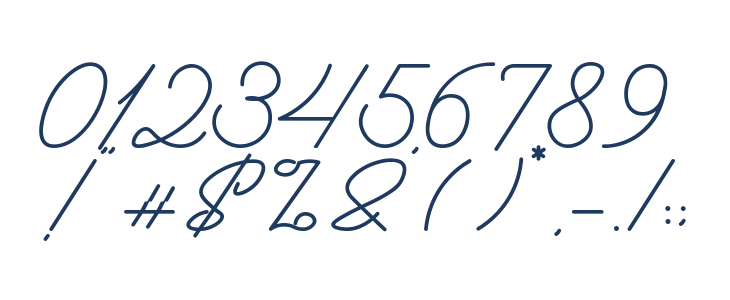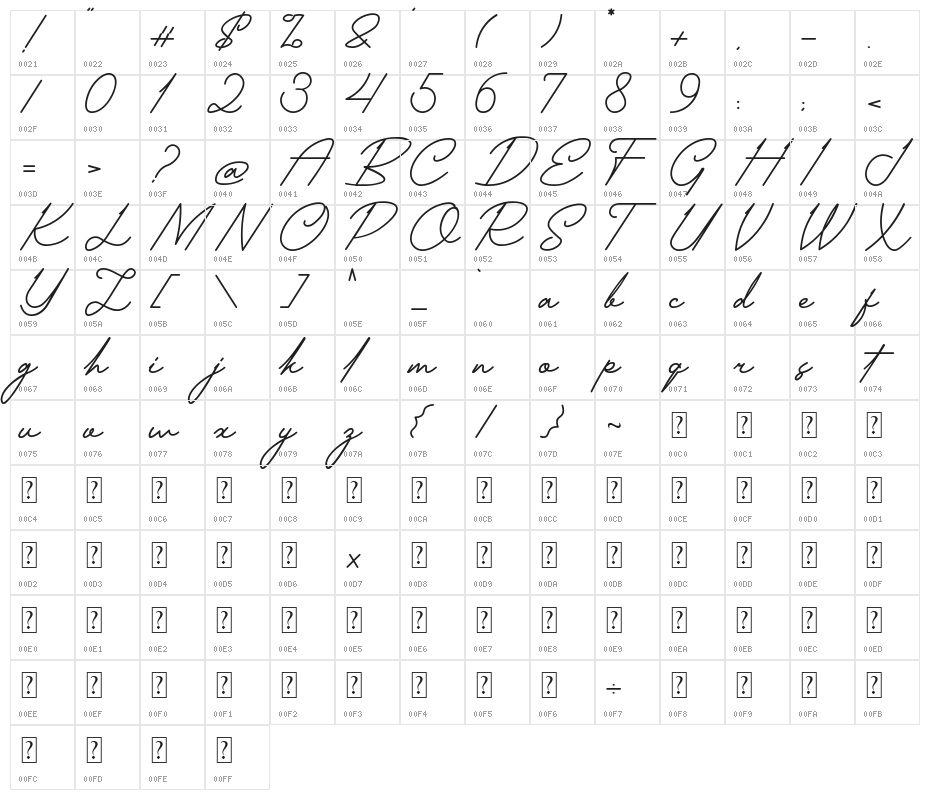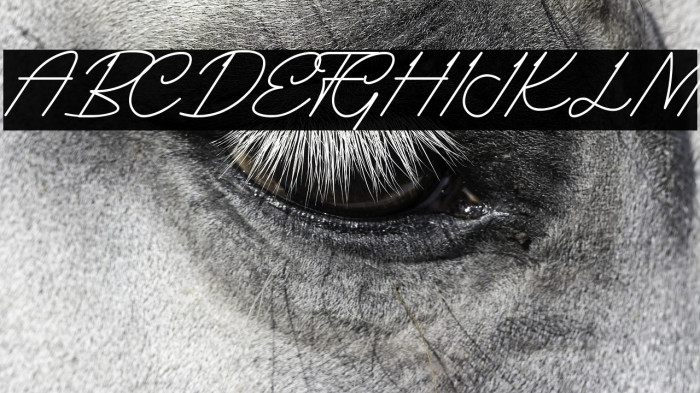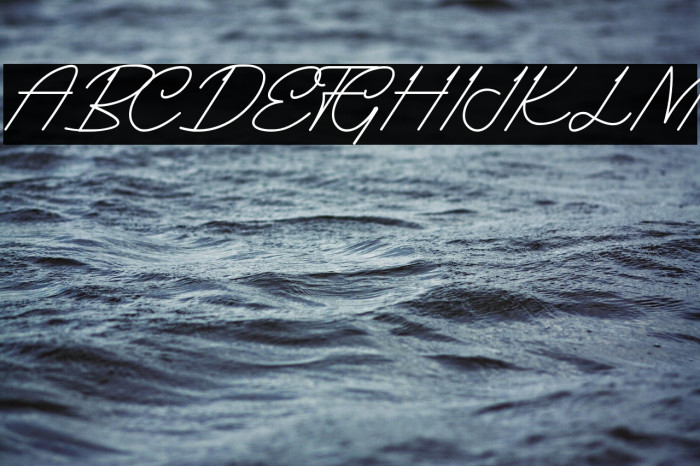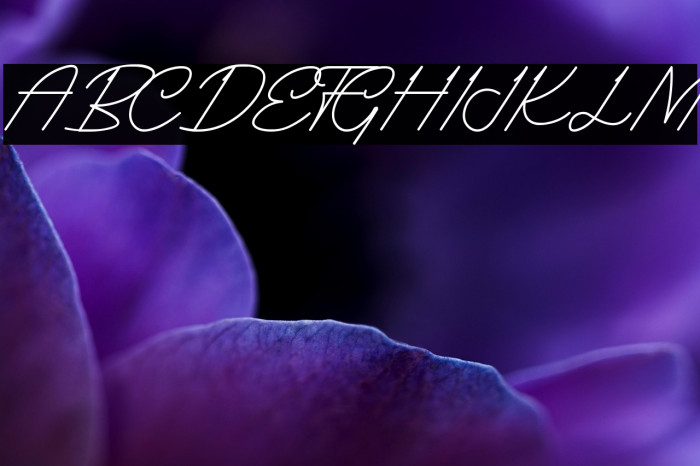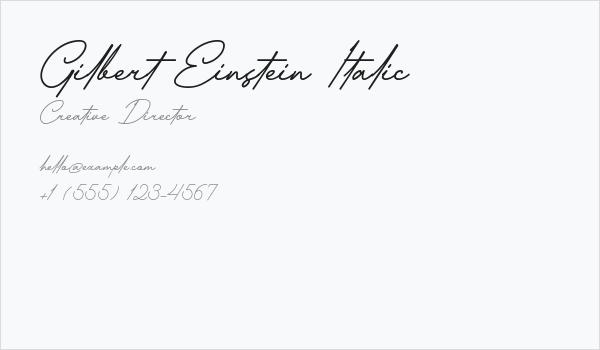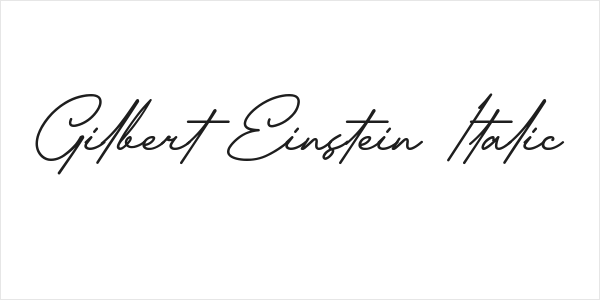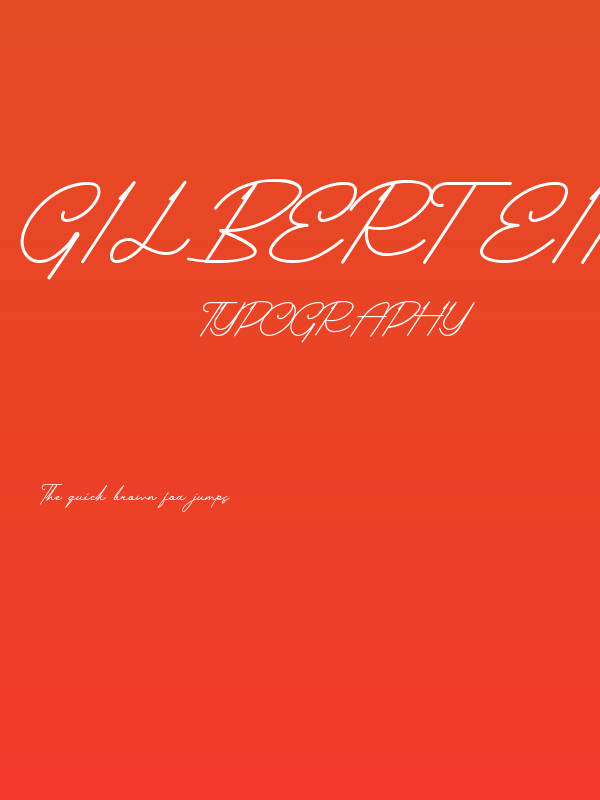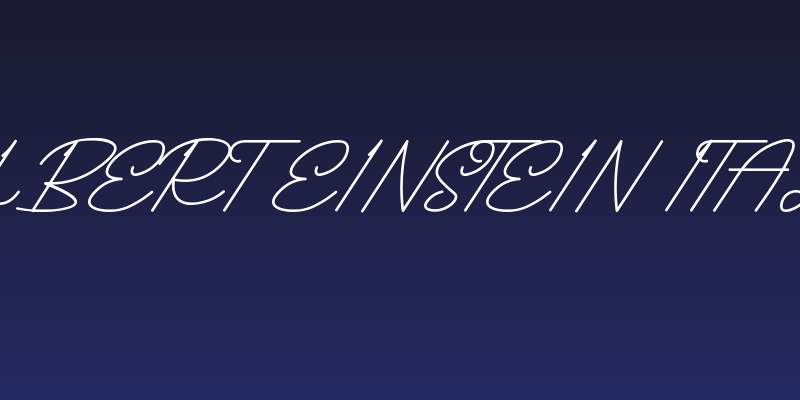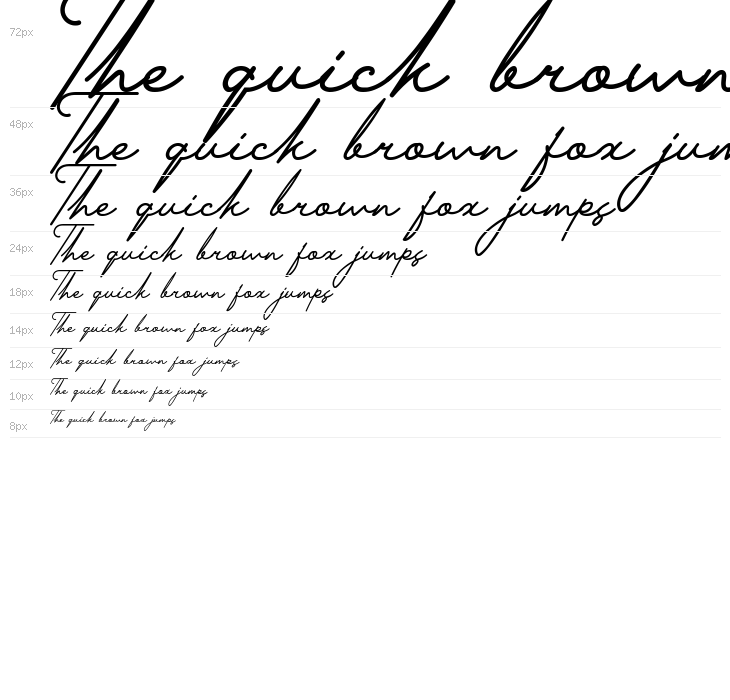
Gilbert Einstein Italic Font
Gilbert Einstein Italic Description
This font features an elegant and flowing script style, characterized by its smooth, continuous strokes and a slight slant that gives it a dynamic and sophisticated appearance. The uppercase letters are tall and graceful, while the lowercase letters maintain a consistent flow that mimics natural handwriting. The numerals are clear and legible, complementing the overall cursive aesthetic. Special characters are seamlessly integrated, maintaining the font's cohesive look. This font exudes a sense of refinement and elegance, making it suitable for formal and creative applications.
Overall StyleElegant, Sophisticated
Use CaseInvitations, Branding, Artistic projects
Proposed ProjectsIdeal for wedding invitations, elegant branding, personal stationery, and artistic projects.